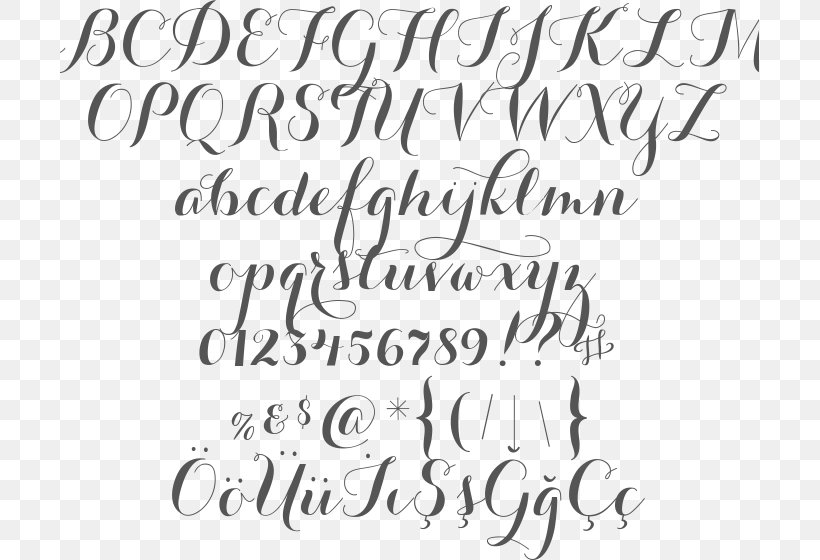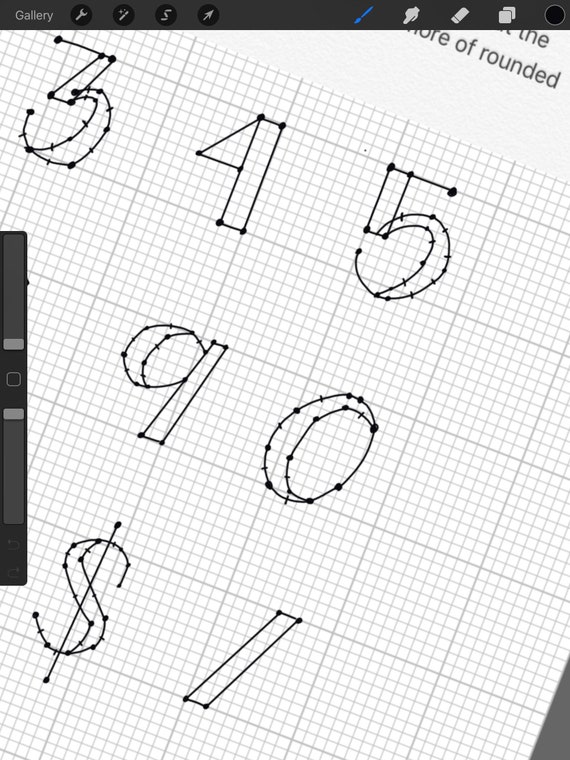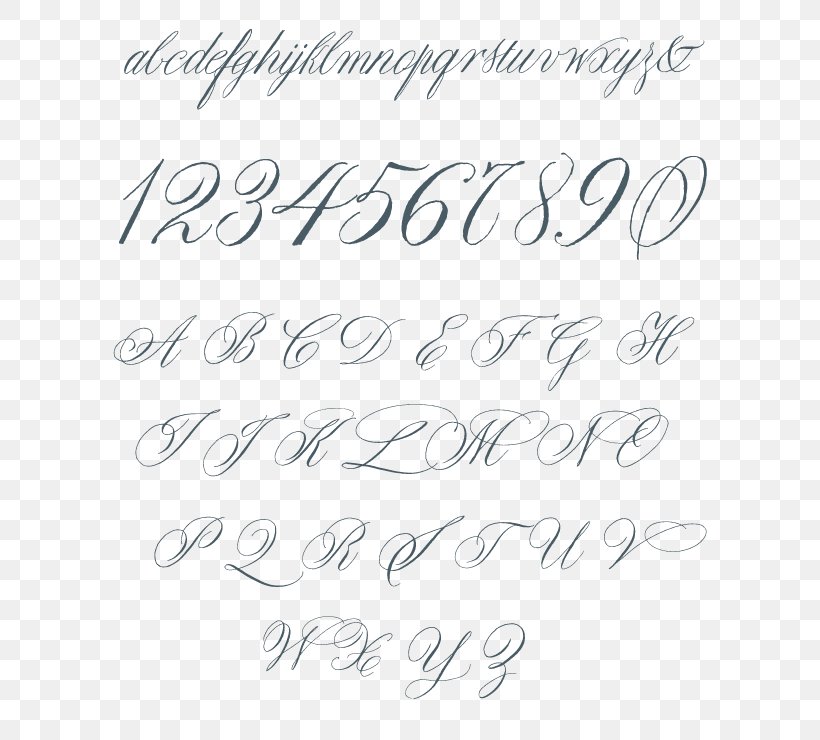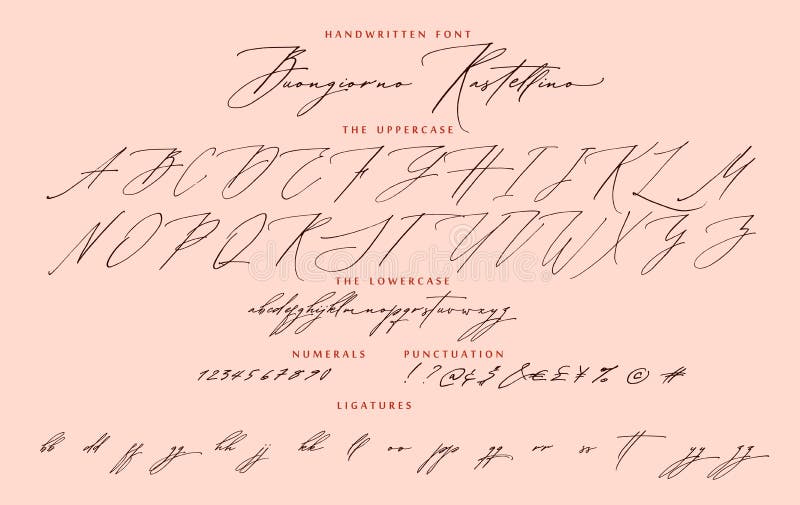
This is not a complete collection many other fonts on FontSpace have fancy numbers in the number digits. Calligraphy is an artistic writing style where the pressure is varied to create thick and thin lines all in a single stroke.
Calligraphy cursive number fonts. Number fonts is a style that is dedicated to just the number letters. Calligraphy is an ancient writing technique using flat edged pens to create artistic lettering using thick and thin lines depending on the direction of the stroke. Letters may be joined or unjoined.
The height of calligraphy was reached in the middle age where monks developed the narrow writing style called gothic allowing more words to fit on a single line as paper was expensive at the time. This can be a great font option for t-shirts greeting cards restaurant names billboards and other similar projects. It usually involves a nibbed pen or brush.
Calligraphy Generator calligraphy is a visual art related to writing. It is the design and execution of lettering with a broad tip instrument brush or other writing instruments. In the Arabic Latin and Cyrillic alphabets many or all letters in a word are connected sometimes making a word one single complex stroke.
The writing is readable but is usually extravagant and embellished with flourishes.